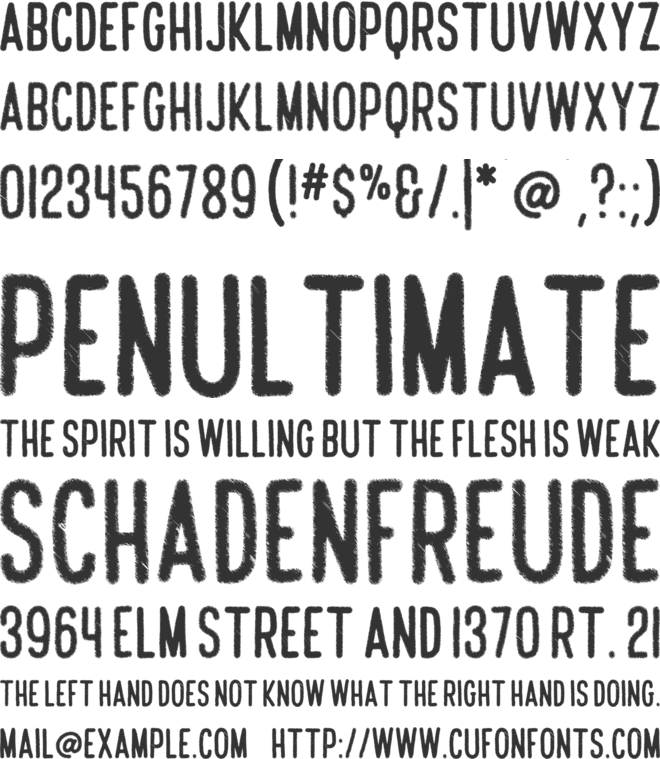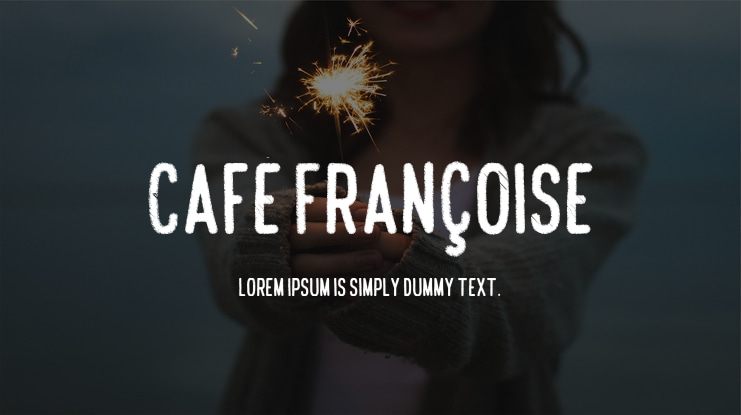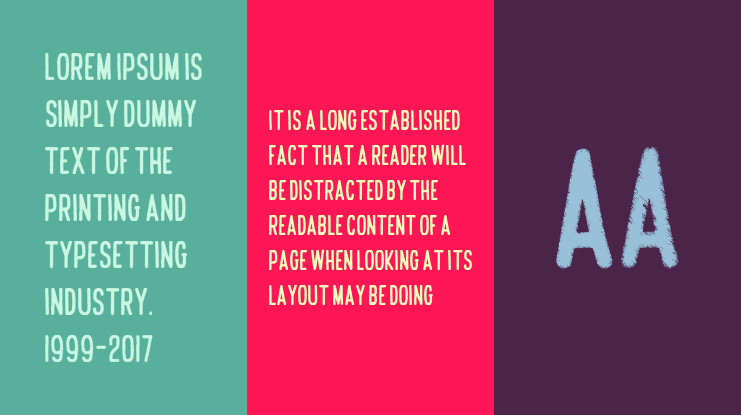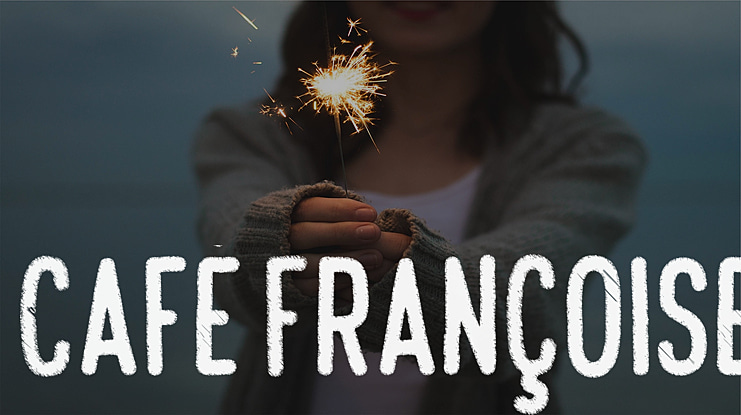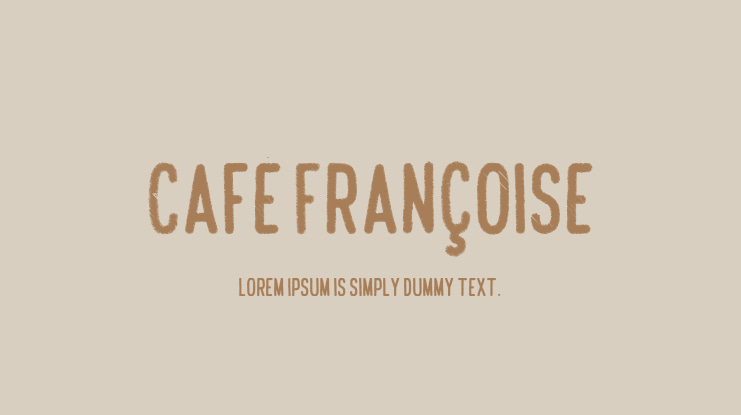
Bonjour font fans. Bienvenue au Café Françoise! (pronounced frahn-SWOSS). This simple and charming display font was inspired by outdoor chalk boards that showcase an outdoor cafe's specials. I encountered these in places like Paris, London, NY, Montreal, and all over Belgium. It's casual nature lends to a relaxation synonomous with lingering over an espresso.The glyphs are irregular and slightly eroded for a handwritten l look. Basic latin, extended latin, diacritics and punctuation are included. You can pair pictured graphics if your application supports OTF features. You can use the Glyphs panel for this. Kerning is added as well. Use it for a company logo, menu, or poster.